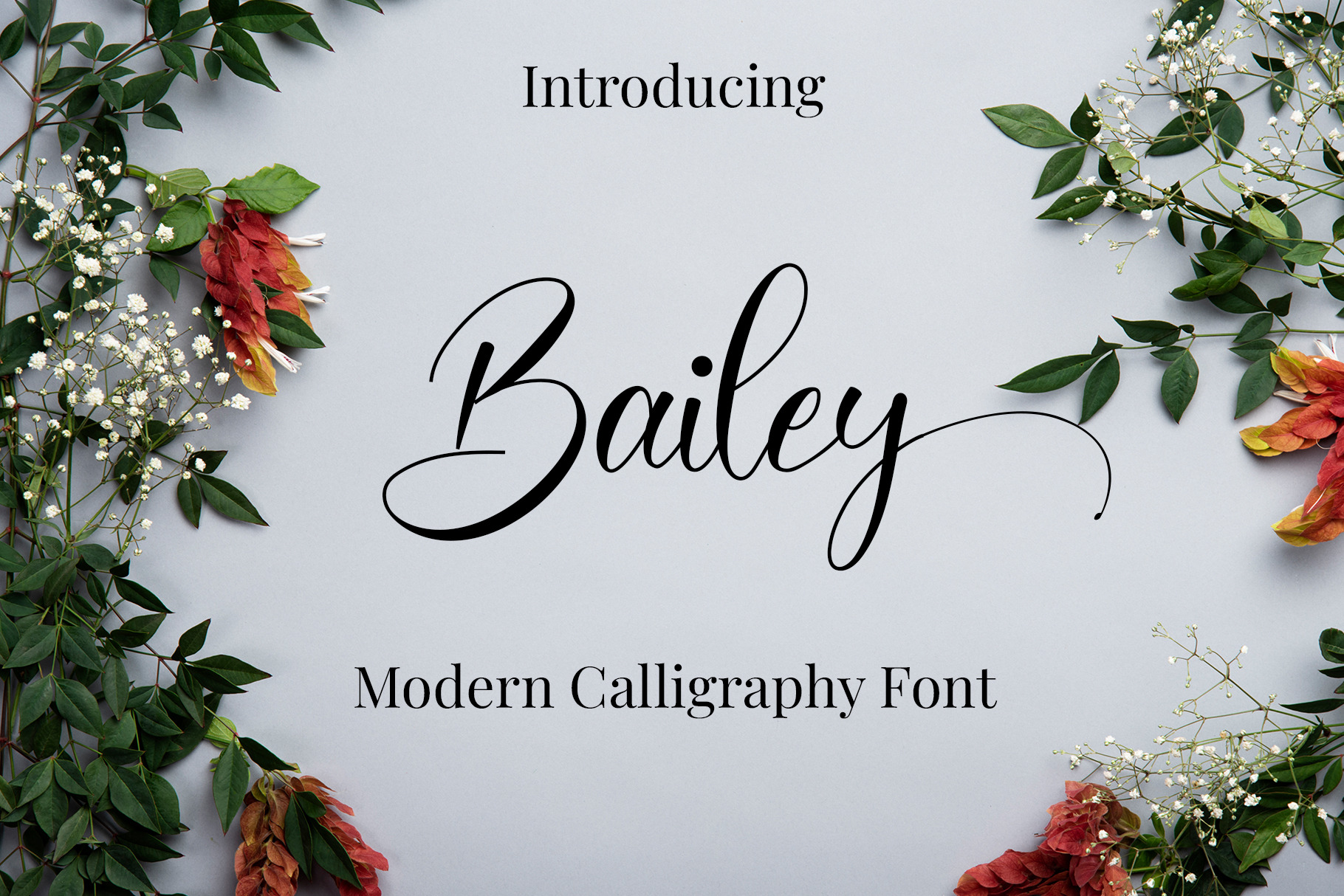
Bailey - Wedding Font
Bailey is a stunning script font that exudes class, elegance, and modernity. Its versatility makes it an ideal choice for a myriad of projects!